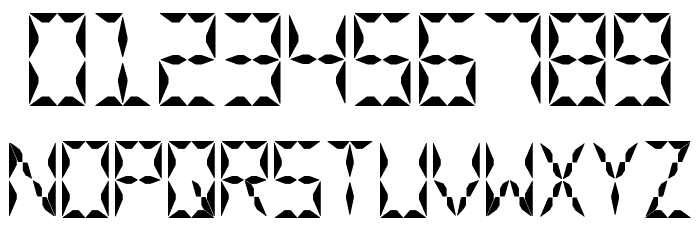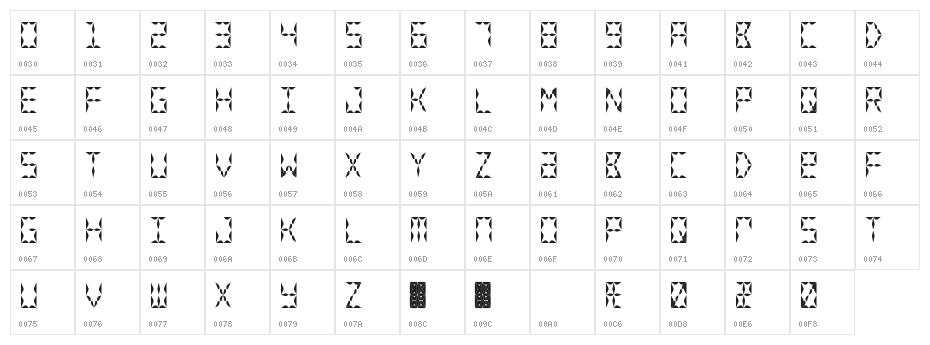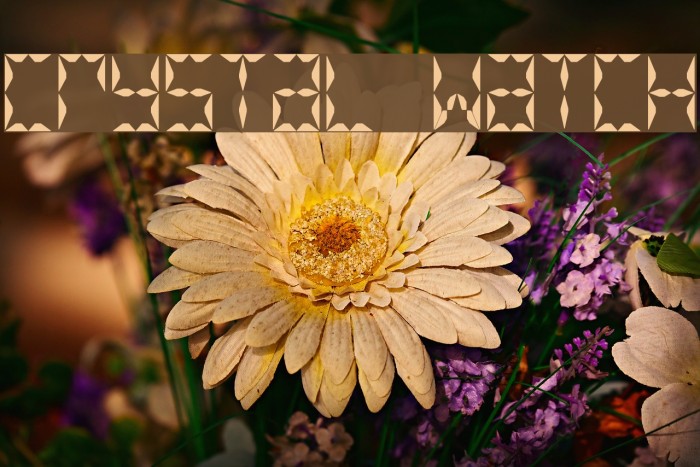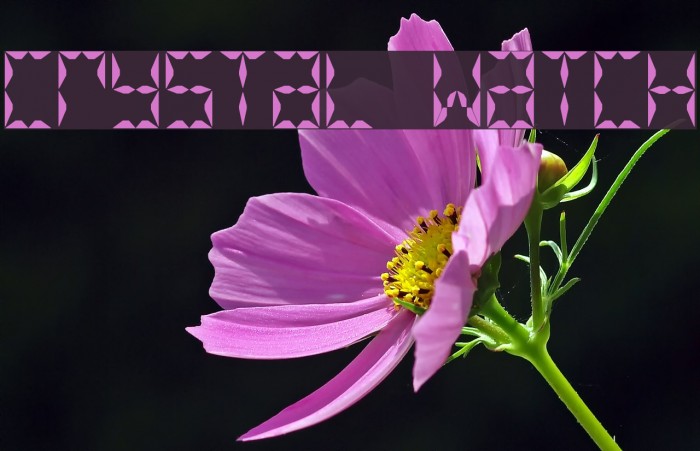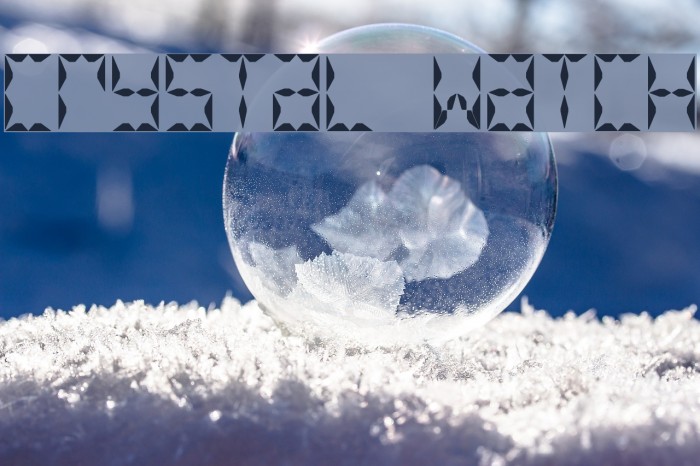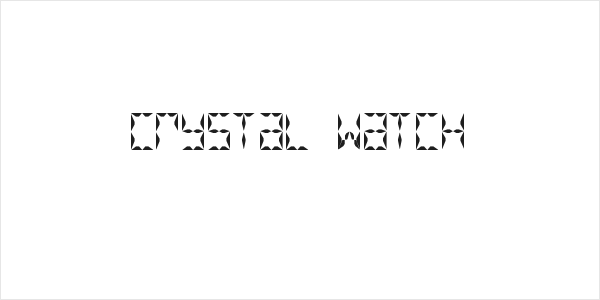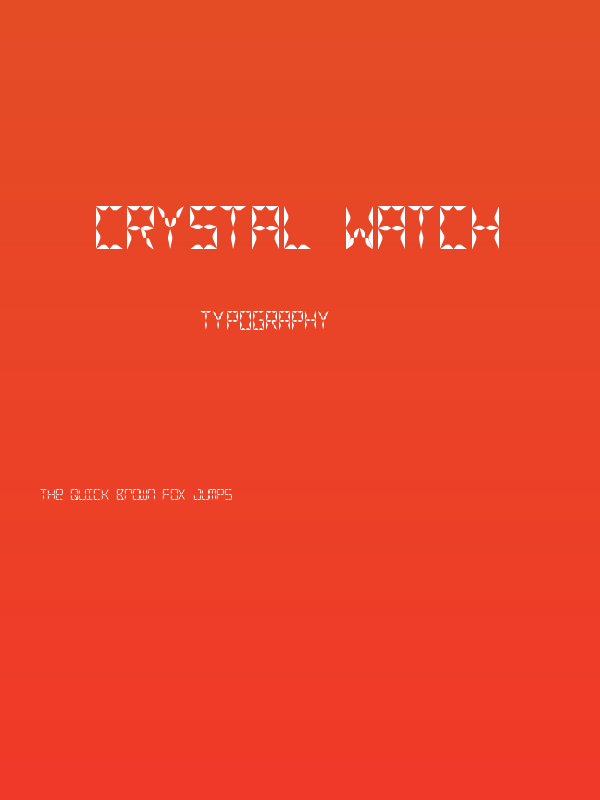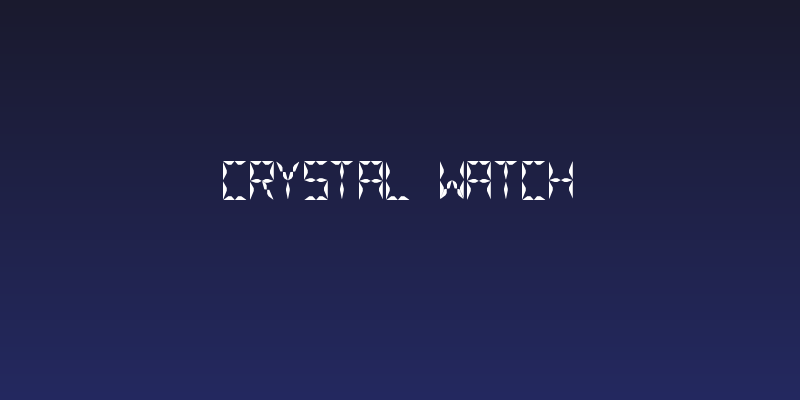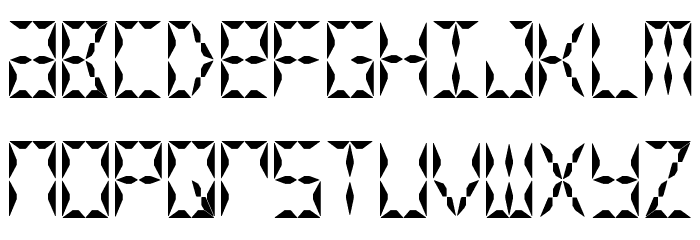
Crystal Watch Font
Crystal Watch Description
This font features a geometric and decorative style, characterized by its unique use of diamond-shaped cutouts within each character. The bold, angular lines create a striking visual effect, making it highly distinctive and eye-catching. Each letter and number is crafted with precision, maintaining a consistent pattern that gives the font a cohesive look. The use of negative space within the characters adds an element of intrigue and complexity, making it suitable for projects that require a bold statement. The font's symmetrical design and sharp edges contribute to its modern and futuristic appeal, while the decorative elements provide a touch of elegance.
| Proposed Projects | Ideal for branding, posters, album covers, and any design project that seeks a modern and bold aesthetic. |